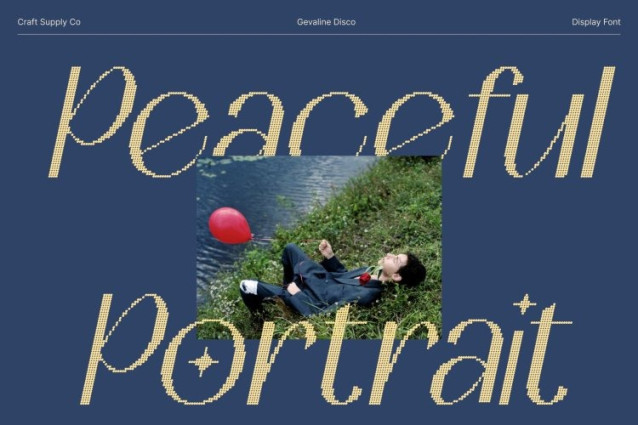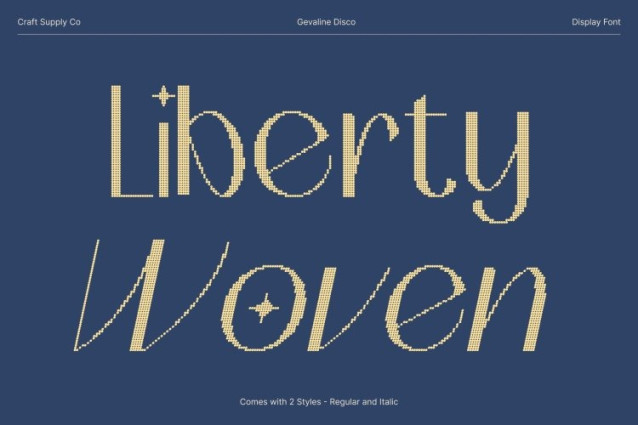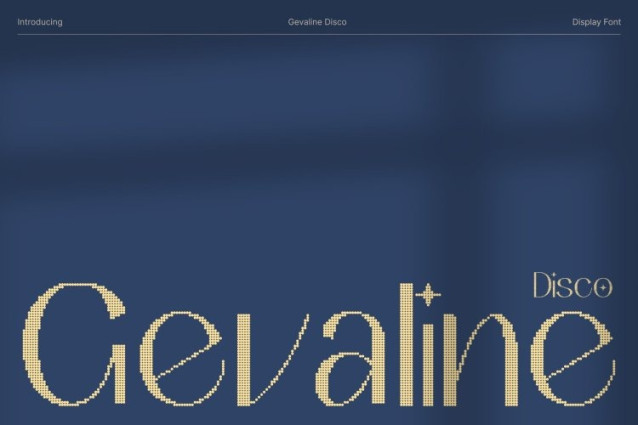
Gevaline Disco Font
Gevaline Disco Font This is a delicate and stylish pretty display font designed to bring elegance and femininity into your visual projects. With smooth curves, refined shapes, and a gentle rhythm, this typeface delivers a graceful aesthetic that feels both modern and charming. Its soft letterforms make it perfect for designs that want to appear sweet, sophisticated, and beautifully polished.
Disco Shimmer for a Radiant, Eye-Catching Effect
What sets this font apart is its enchanting disco shimmer overlay adding a layer of sparkle that enhances every stroke. The shimmering effect introduces a lively, glamorous glow, turning simple typography into a dazzling feature. This built-in shimmer brings energy and brightness, making your text shine with stylish confidence.
Perfect for Invitations, Posters, and Girlish Branding
Whether you’re crafting elegant invitations, trendy posters, girlish branding, or stylish headlines, this font adds an irresistible touch of charm. Its graceful form works beautifully for beauty products, fashion branding, event promotions, and any design that aims for a polished yet playful appearance. It excels in layouts where softness meets sparkle.
A Modern Font Designed to Dazzle
This font offers the perfect blend of elegance and excitement combining delicate curves with a radiant, disco-inspired finish. This makes it both versatile and visually striking, ideal for designers who want to create pretty, modern, and memorable typography.